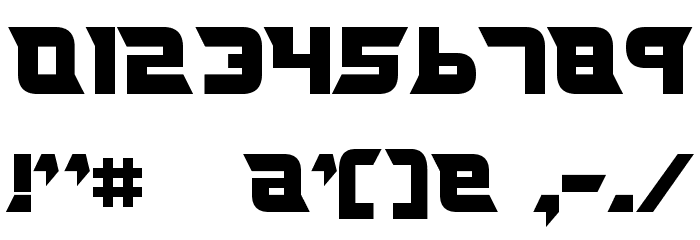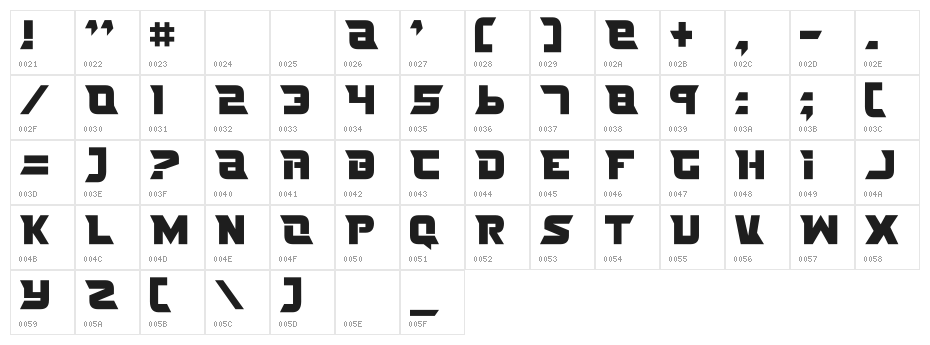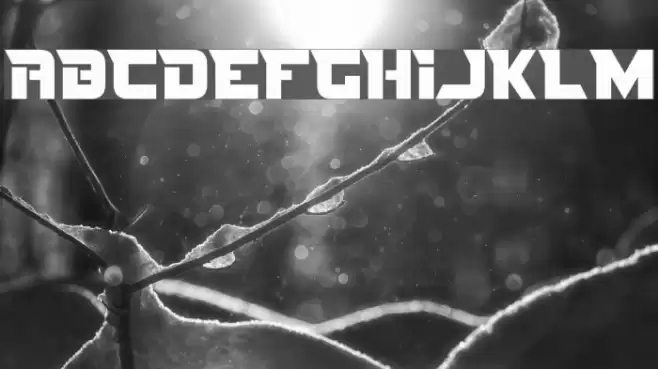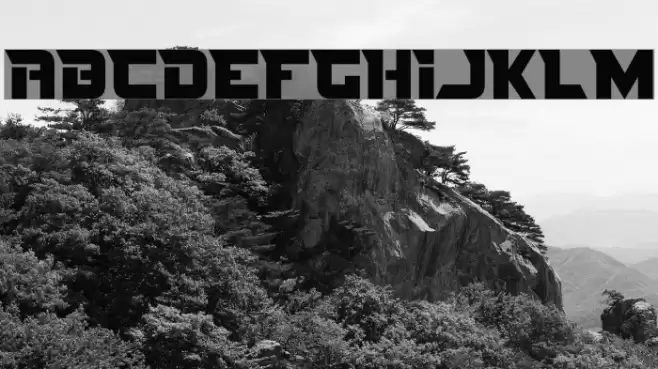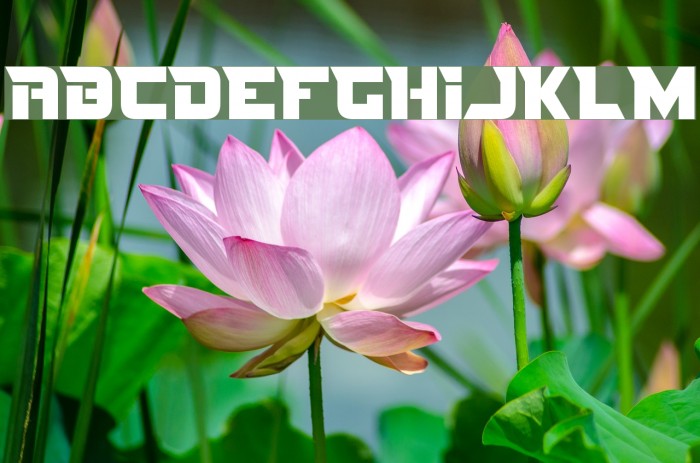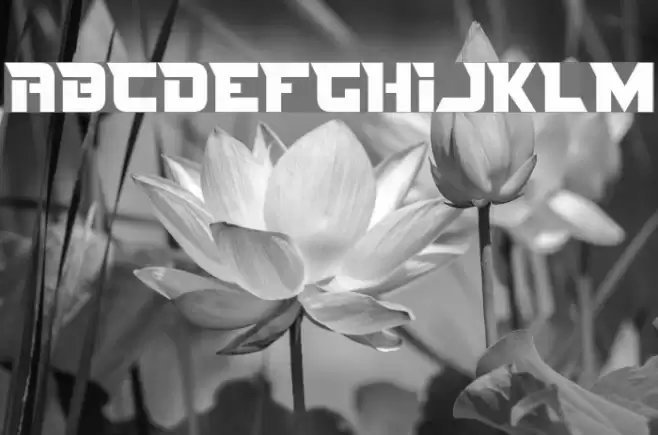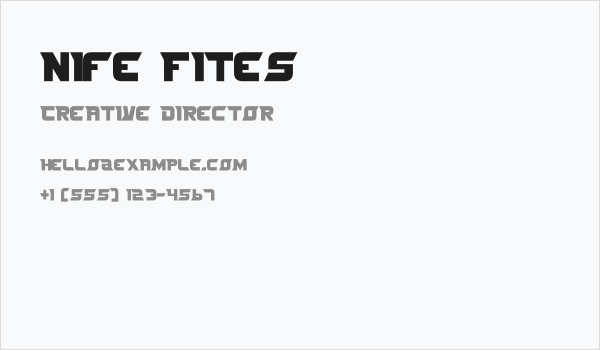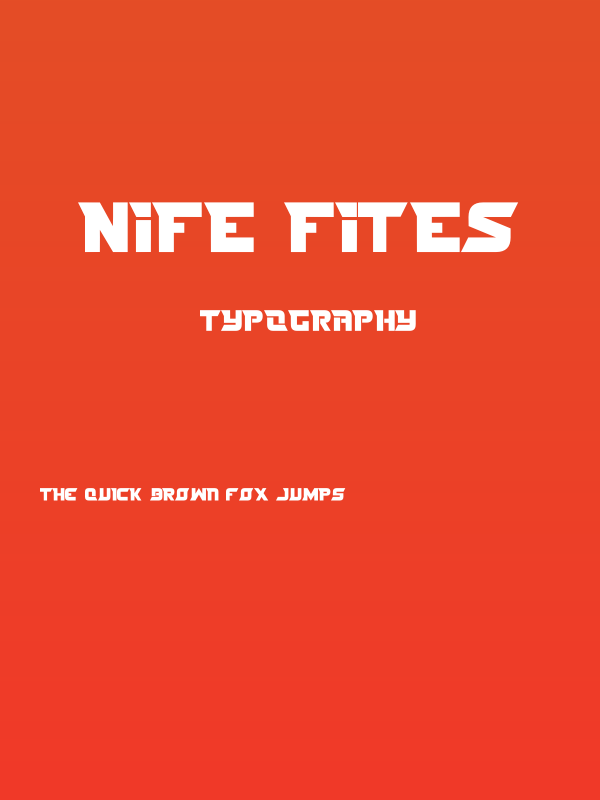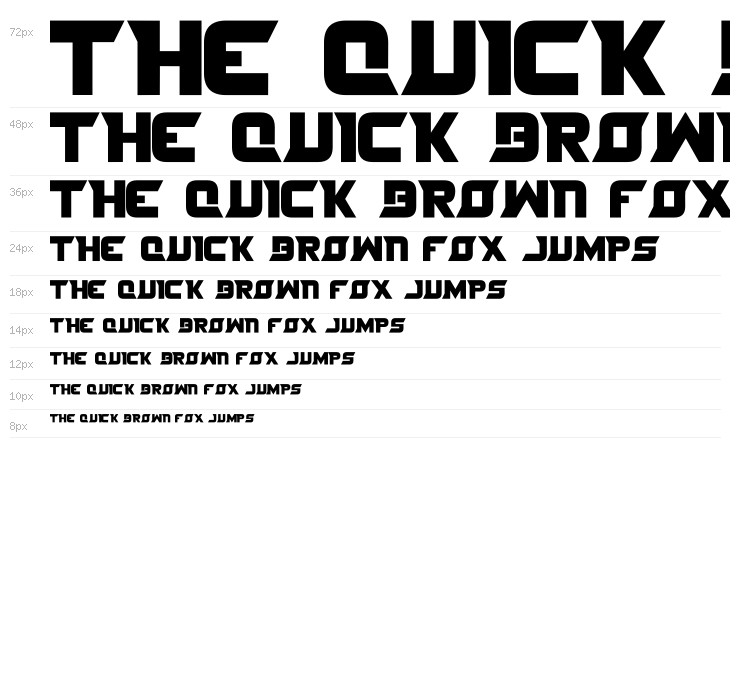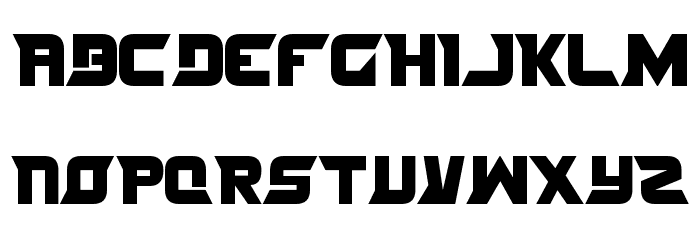
Nife Fites Font
Nife Fites Description
This font features a bold and geometric design with sharp angles and a futuristic aesthetic. The characters are blocky and robust, with a consistent thickness throughout, giving it a strong and impactful presence. The uppercase and lowercase letters maintain a uniform style, enhancing readability while retaining a unique and edgy look. The numerals and special characters are designed to match the overall theme, making it suitable for various creative applications. Its distinct style makes it stand out, ideal for projects that require a modern and bold statement.
| Proposed Projects | Ideal for sci-fi themed projects, video game titles, posters, and branding that requires a modern and bold look. |